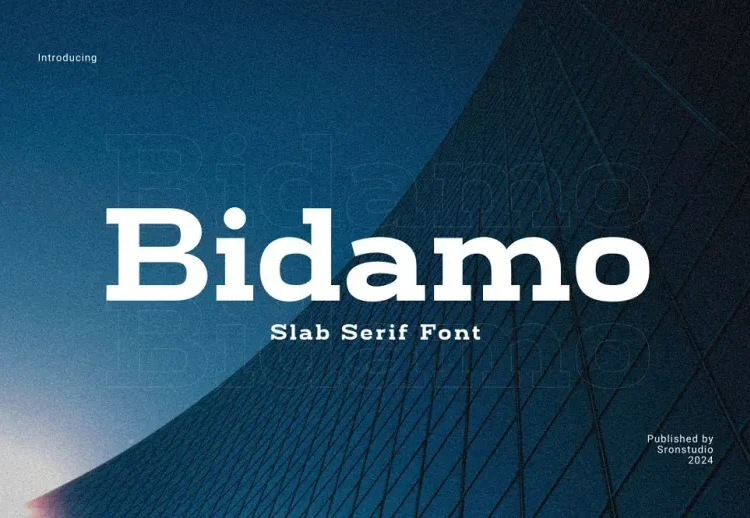
Bidamo Font
in Slab Serif
Bidamo is a robust and contemporary slab serif font crafted to capture attention with its bold and architectural letterforms. Its striking design makes it an ideal choice for impactful titles, logos, branding, and posters. Bidamo combines the classic features of slab serifs with a fresh, modern perspective, offering a distinctive look that stands out in various design contexts.
The font’s strong and clear lines lend a sense of authority and presence, ensuring that your designs not only draw attention but also leave a lasting impression. Whether you’re creating eye-catching headlines or memorable brand elements, Bidamo’s modern aesthetics and bold style bring a powerful edge to your projects.